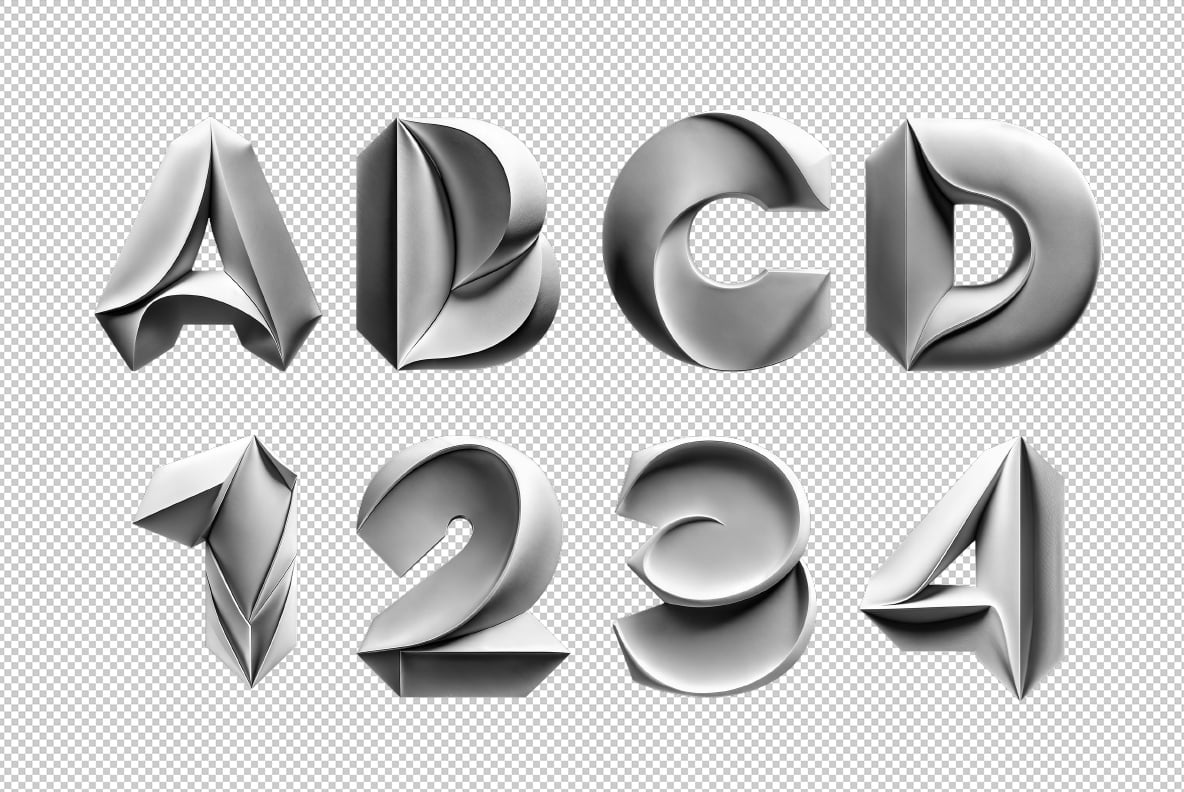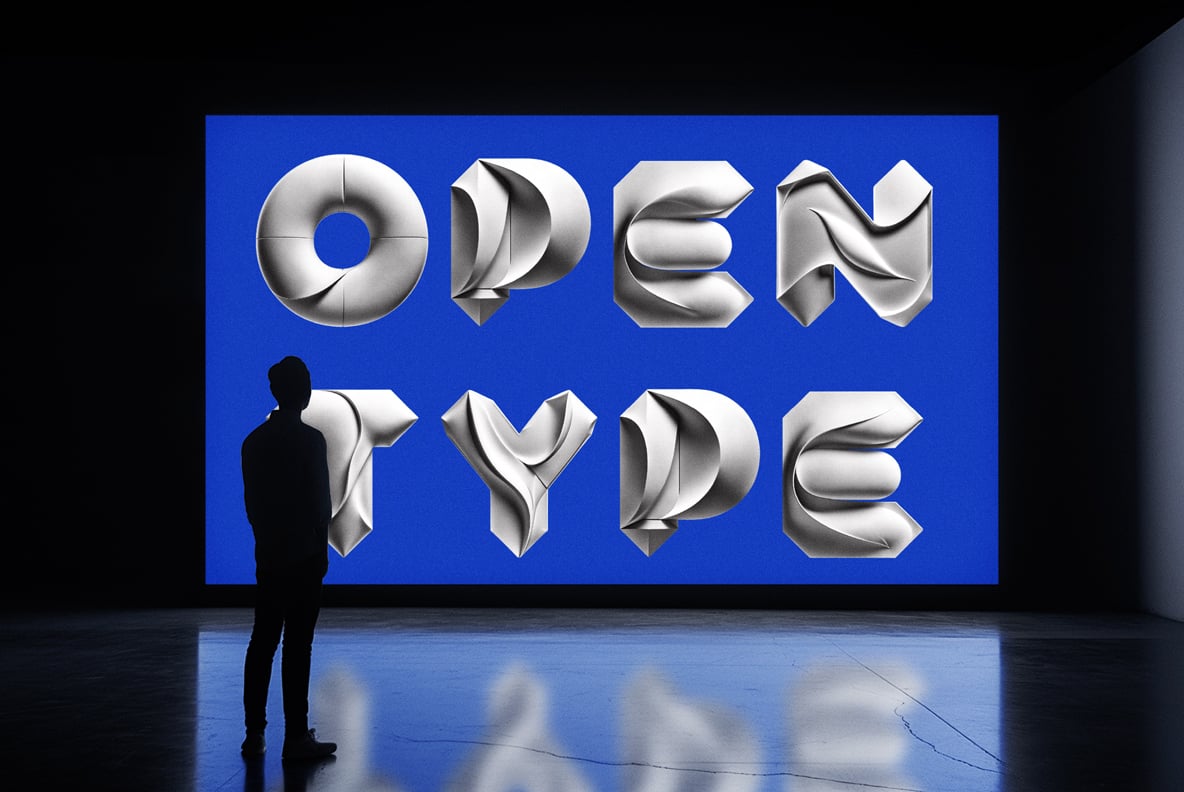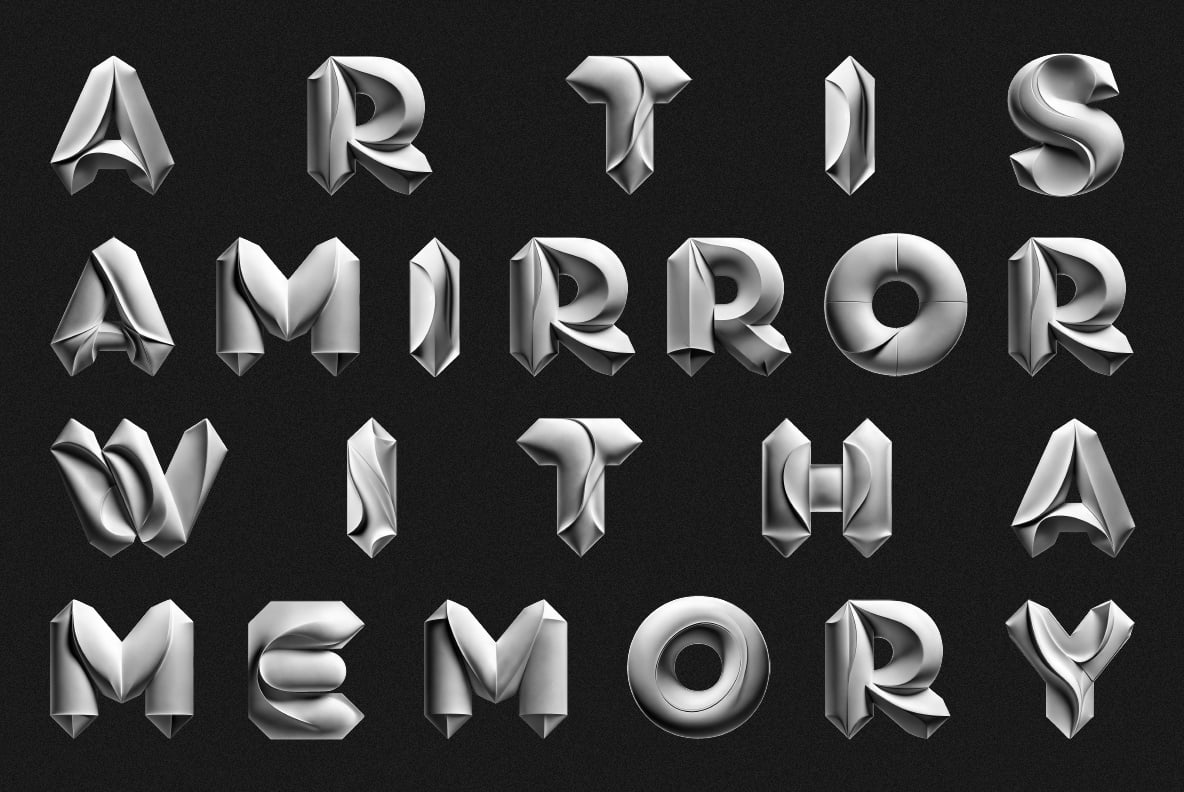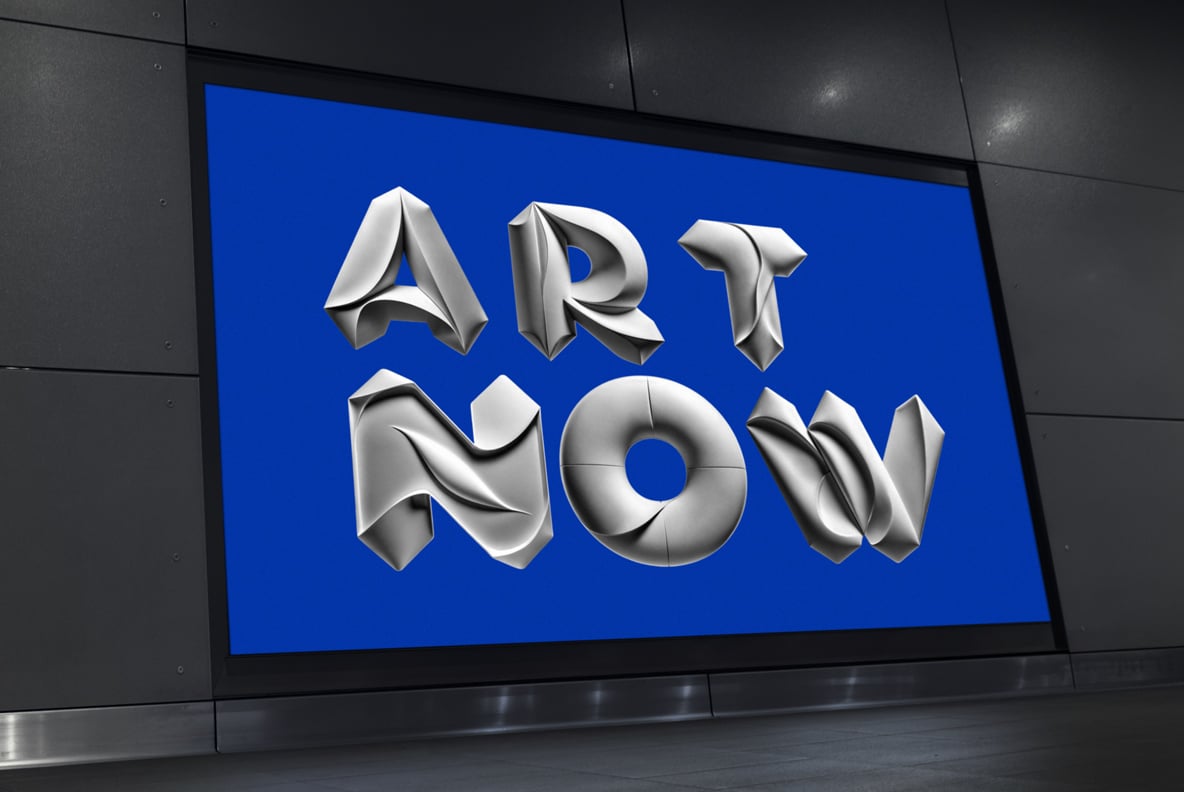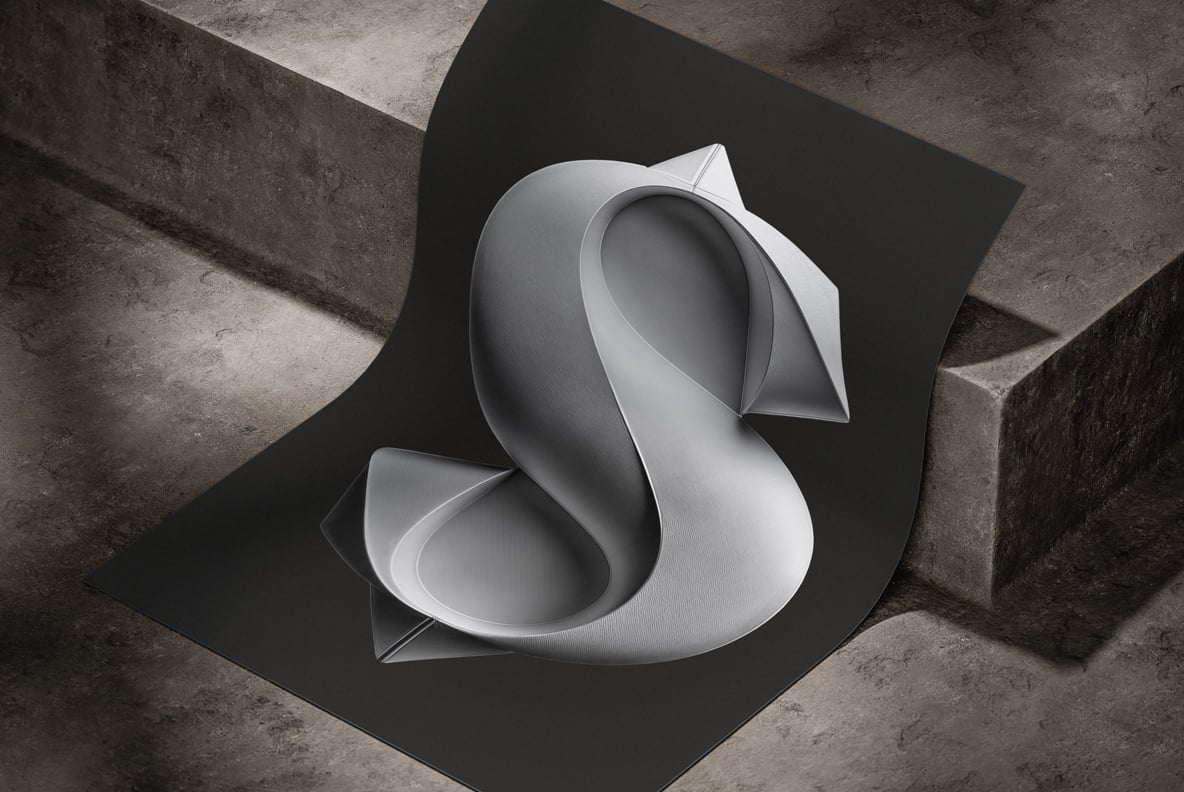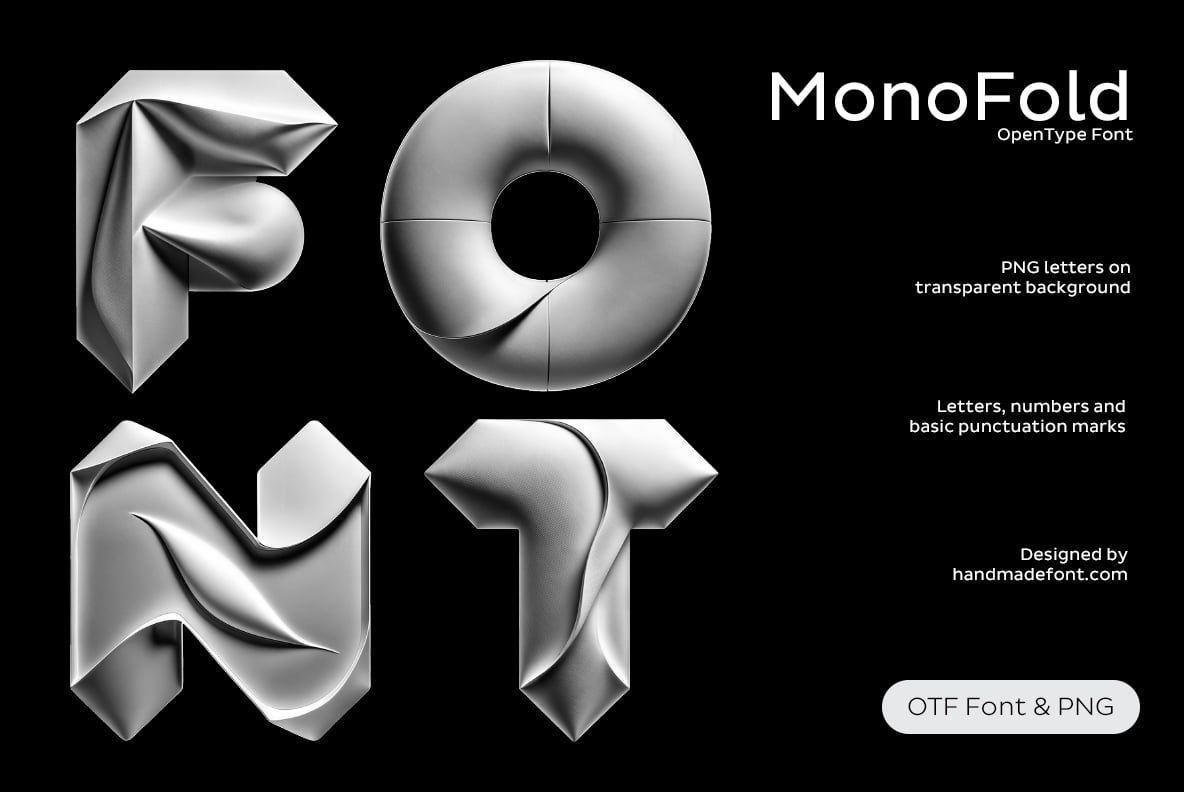
MonoFold Font
MonoFold Font is a sleek, futuristic typeface that blends folded design with sculptural elegance. Crafted to look like origami meets modern art, this font turns every letter into a bold, dimensional statement. Its metallic texture and smooth curves give off a high-end, tech-inspired vibe, perfect for logos, posters, and digital projects. Available in both OTF and PNG formats, MonoFold includes letters, numbers, and essential punctuation. With transparent PNGs and stunning visual impact, it's ready to elevate your next creative venture. Designed by Handmadefont.com, MonoFold is where typography meets sculpture—one fold at a time. Make your message sharp, stylish, and unforgettable.